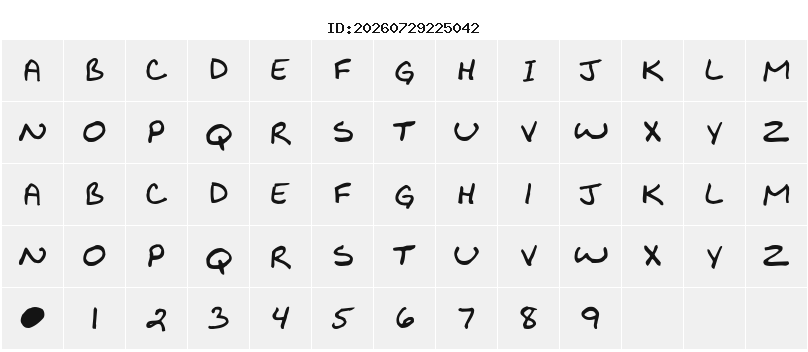
KibbyBoldFont Preview
• Font Name: KibbyBoldFont
• Full Font Name: KibbyBoldFont
About KibbyBoldFont.ttf
KibbyBoldFont.ttf is a modern, elegant sans-serif font designed for ultimate readability and visual harmony. Perfect for branding, headlines, web design, and print materials.